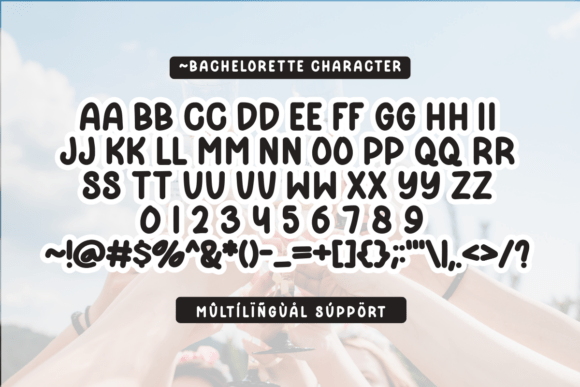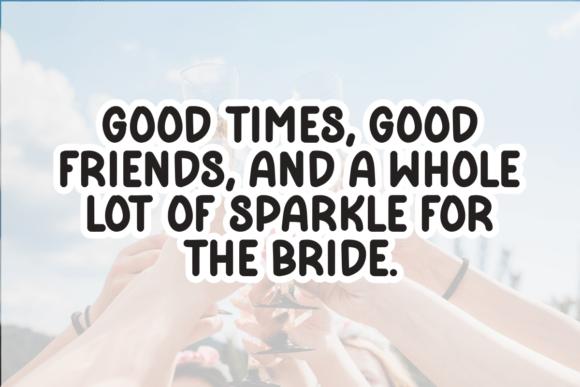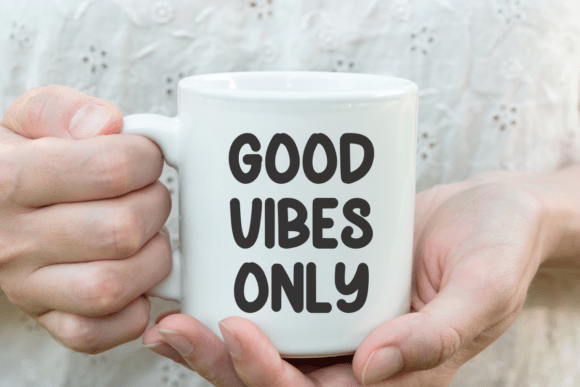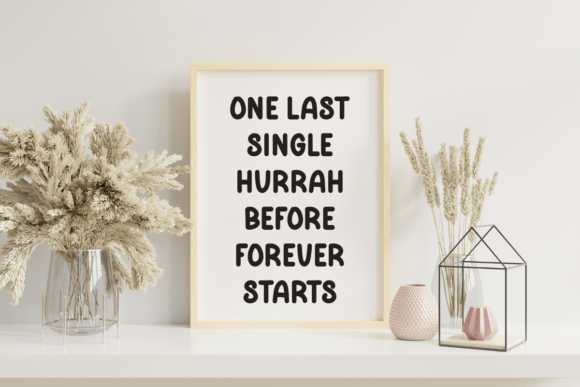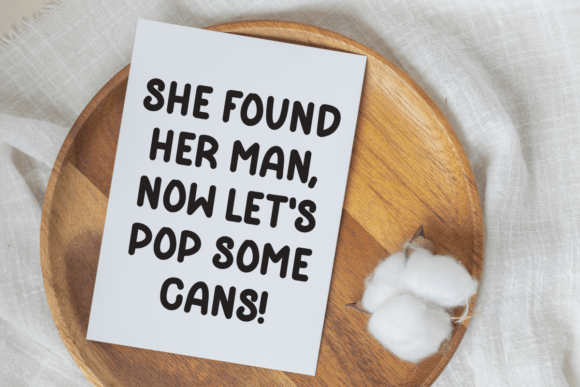
Bachelorette Font: The Perfect Choice for Your Design Needs
Are you a designer or crafter looking for a font that can add a touch of elegance and simplicity to your designs? Look no further than the Bachelorette Font! This cute and minimalist sans serif font is perfect for a variety of design projects, from greeting cards to wedding invitations, gift labels, mugs, t-shirts, and more.
What is Bachelorette Font?
Bachelorette Font is a modern sans serif font that is characterized by its clean and simple lines. It is a highly versatile font that can be used for a wide range of design projects, from digital to print. The font is designed to be easy to read and understand, making it perfect for designs that require a clear and concise message.
Features of Bachelorette Font
- Cute and Minimalist Design: The Bachelorette Font has a cute and minimalist design that makes it perfect for designs that require a simple and elegant look.
- Sans Serif: The font is a sans serif font, which means it doesn’t have any decorative lines or flourishes at the ends of the letters.
- Highly Versatile: The font is highly versatile and can be used for a wide range of design projects, from digital to print.
- Easy to Read: The font is designed to be easy to read and understand, making it perfect for designs that require a clear and concise message.
Uses of Bachelorette Font
The Bachelorette Font is perfect for a variety of design projects, including:
- Greeting Cards: The font is perfect for creating beautiful and elegant greeting cards for special occasions.
- Wedding Invitations: The font is a popular choice for wedding invitations, as it adds a touch of elegance and sophistication to the design.
- Gift Labels: The font is perfect for creating cute and personalized gift labels for special occasions.
- Mugs and T-Shirts: The font is a great choice for designing mugs and t-shirts, as it is easy to read and understand.
- Quotes and Labels: The font is perfect for creating inspirational quotes and labels for various products.
Benefits of Using Bachelorette Font
There are several benefits to using the Bachelorette Font for your design needs:
- Unique and Creative Designs: The font allows you to create unique and creative designs that stand out from the crowd.
- Elegant and Sophisticated Look: The font adds an elegant and sophisticated look to your designs, making them perfect for special occasions.
- High-Quality Designs: The font is designed to produce high-quality designs that are perfect for printing and digital use.
Tips for Using Bachelorette Font
Here are a few tips for using the Bachelorette Font:
- Use it with Other Fonts: The Bachelorette Font can be paired with other fonts to create a unique and creative design.
- Experiment with Different Sizes: The font can be used in different sizes to create a visually appealing design.
- Use it for Digital and Print Designs: The font is perfect for both digital and print designs, making it a versatile choice for designers.
In conclusion, the Bachelorette Font is a cute and minimalist sans serif font that is perfect for a variety of design projects. Its clean and simple lines make it easy to read and understand, while its elegant and sophisticated look makes it perfect for special occasions. With its versatility and ease of use, the Bachelorette Font is a great choice for designers and crafters looking to create unique and creative designs.